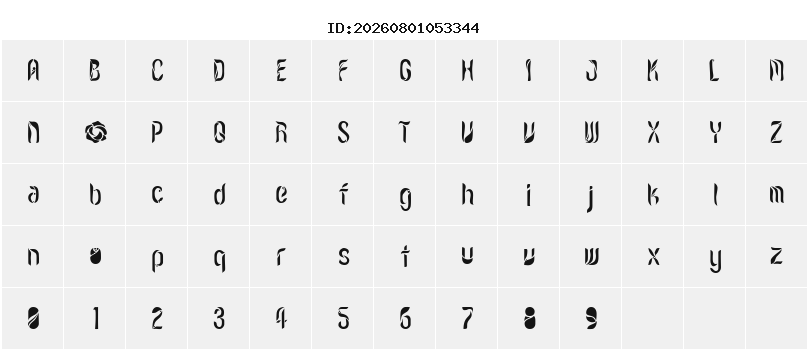
About LVDC Romantic9.ttf
LVDC Romantic9.ttf is a modern, elegant sans-serif font designed for ultimate readability and visual harmony. Perfect for branding, headlines, web design, and print materials.